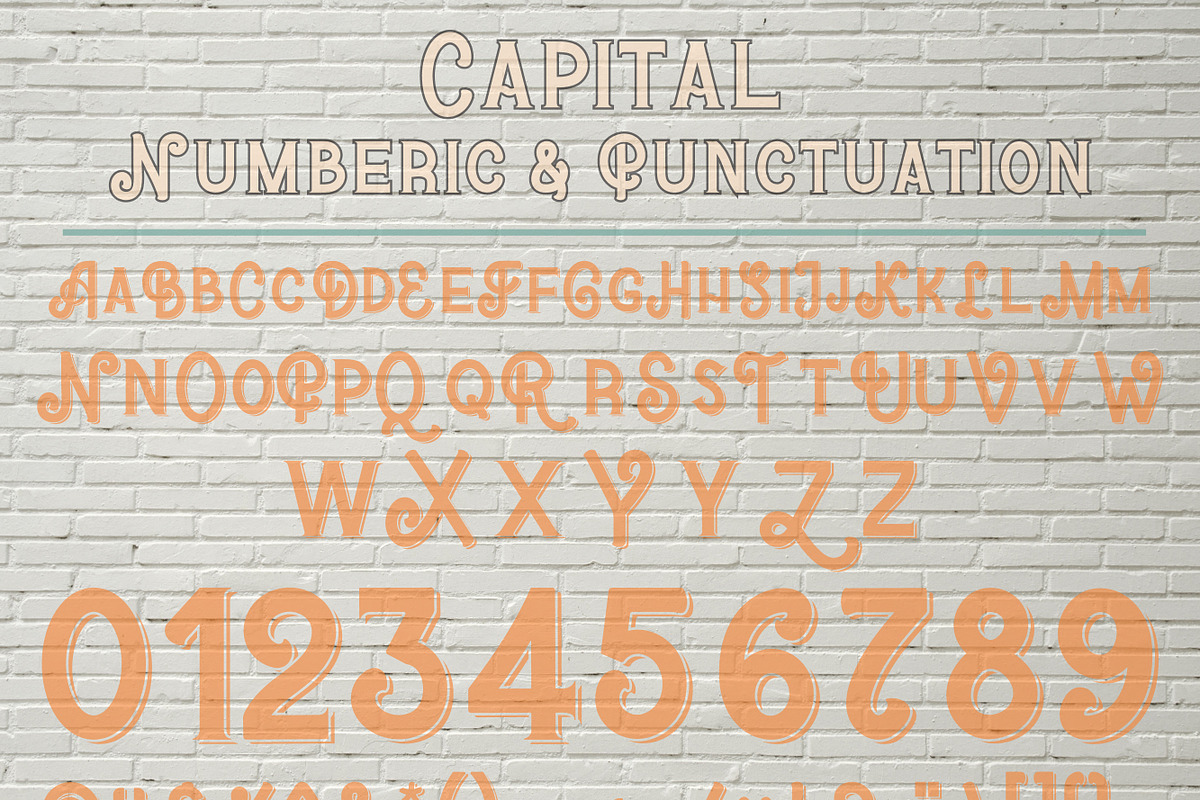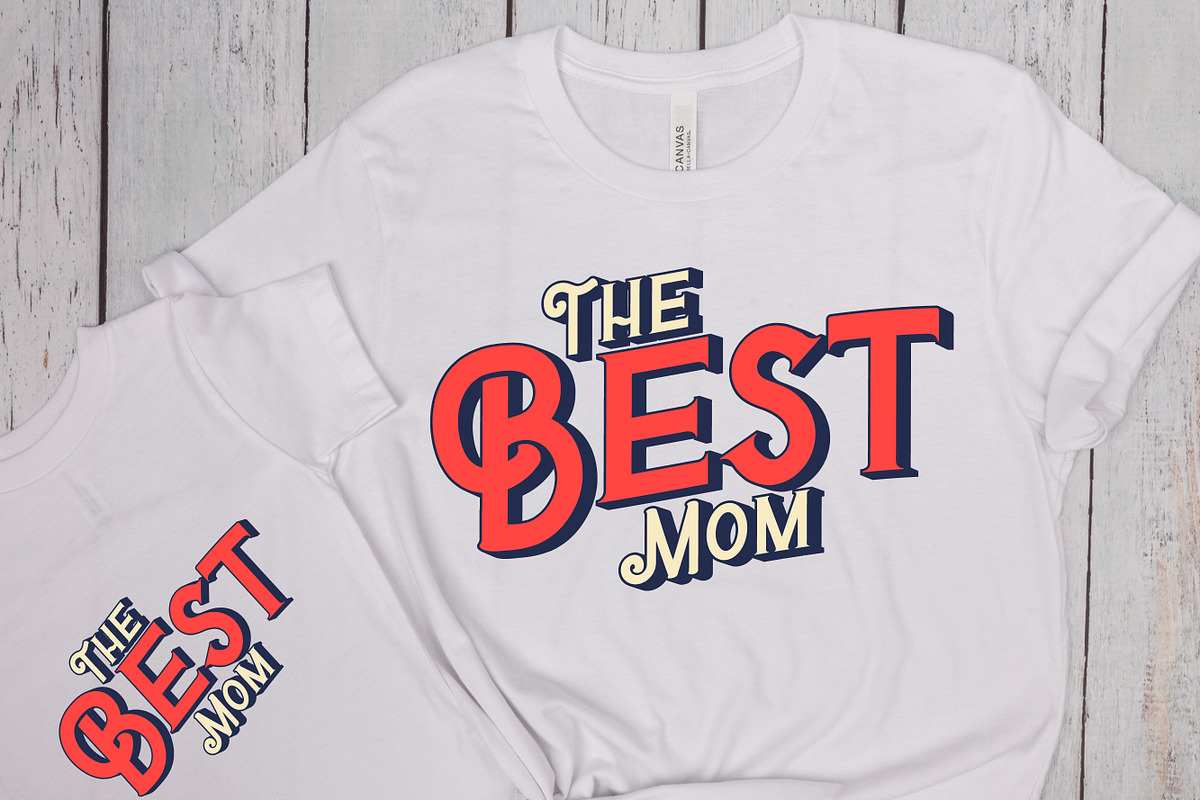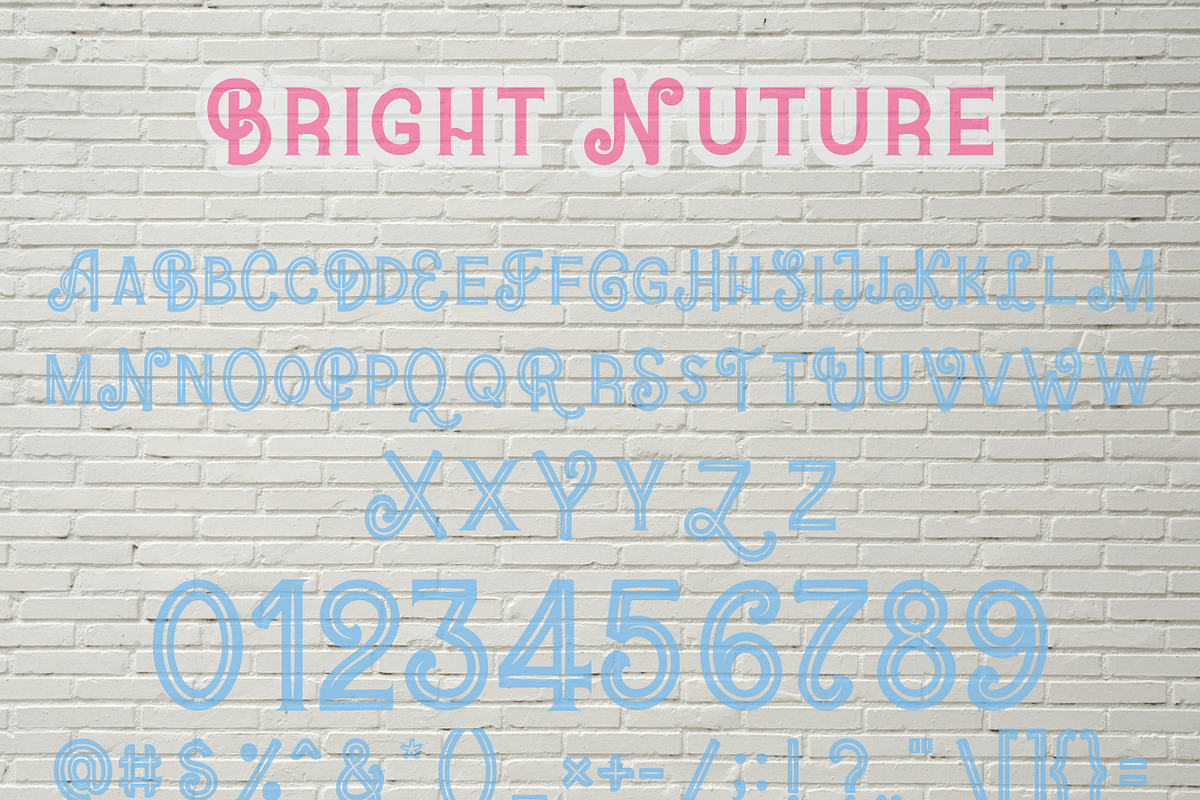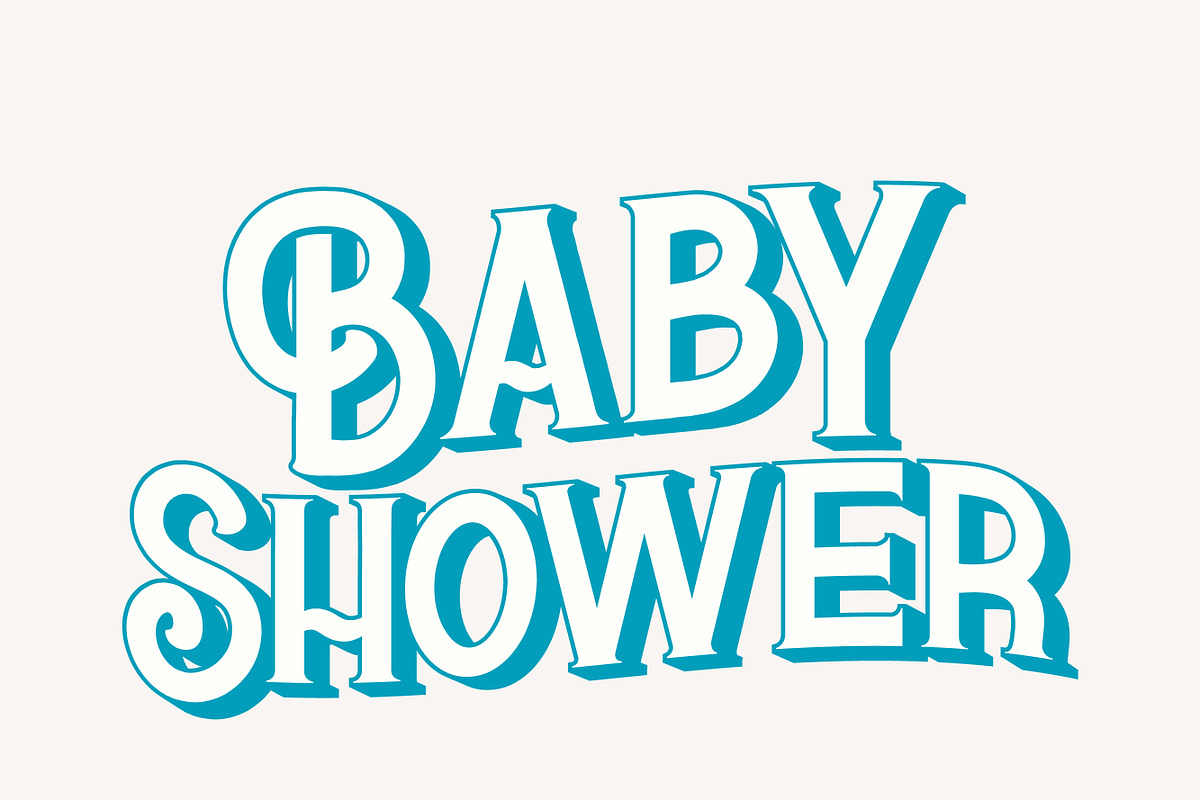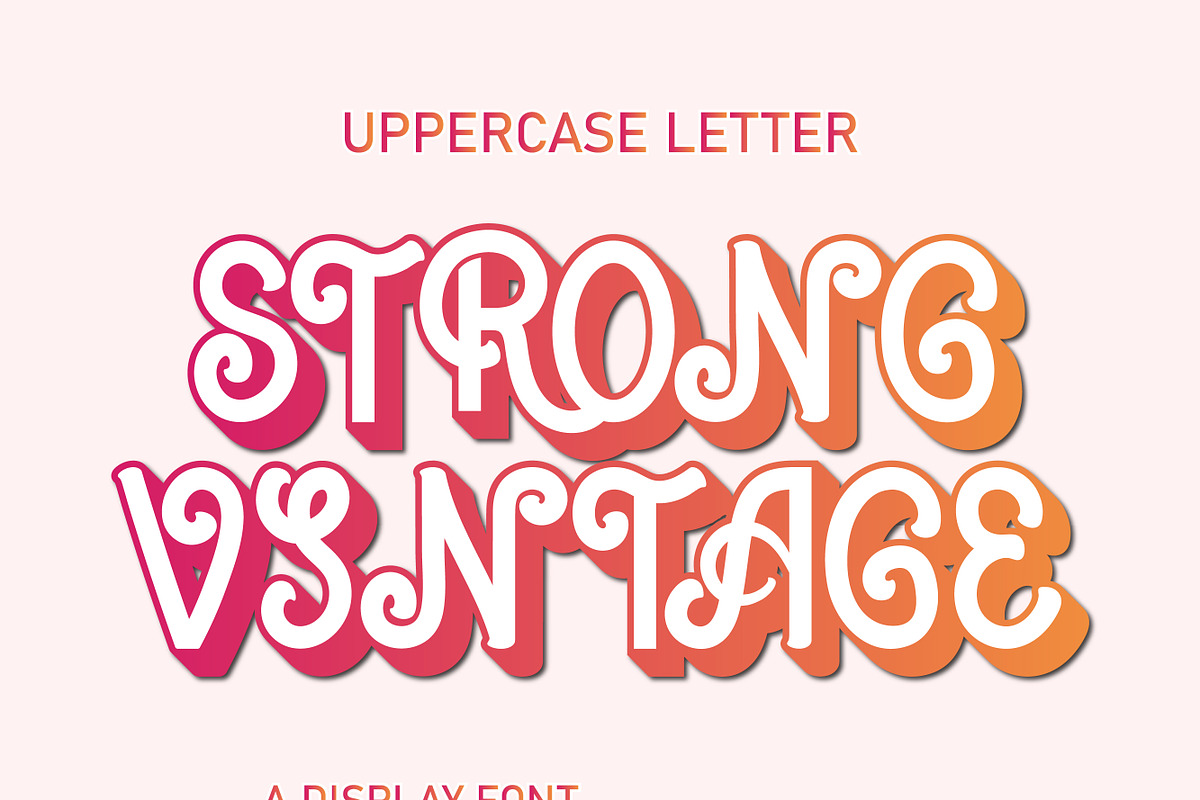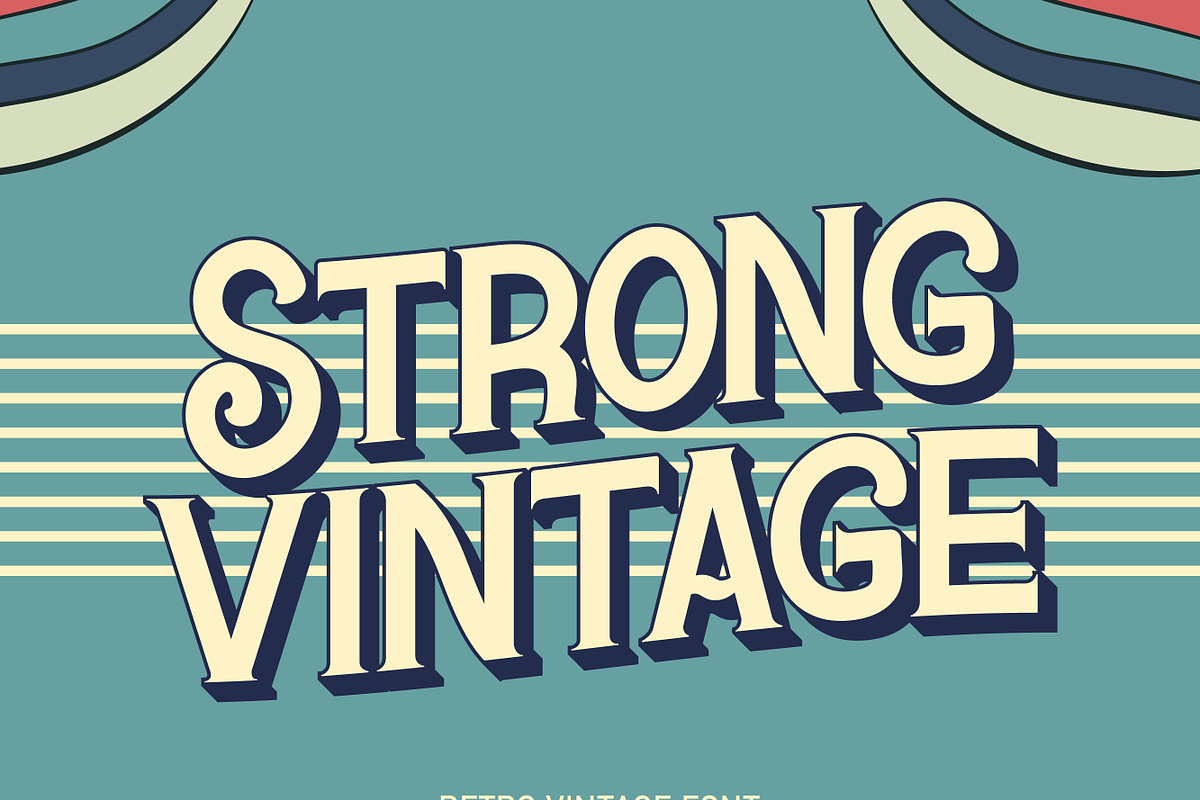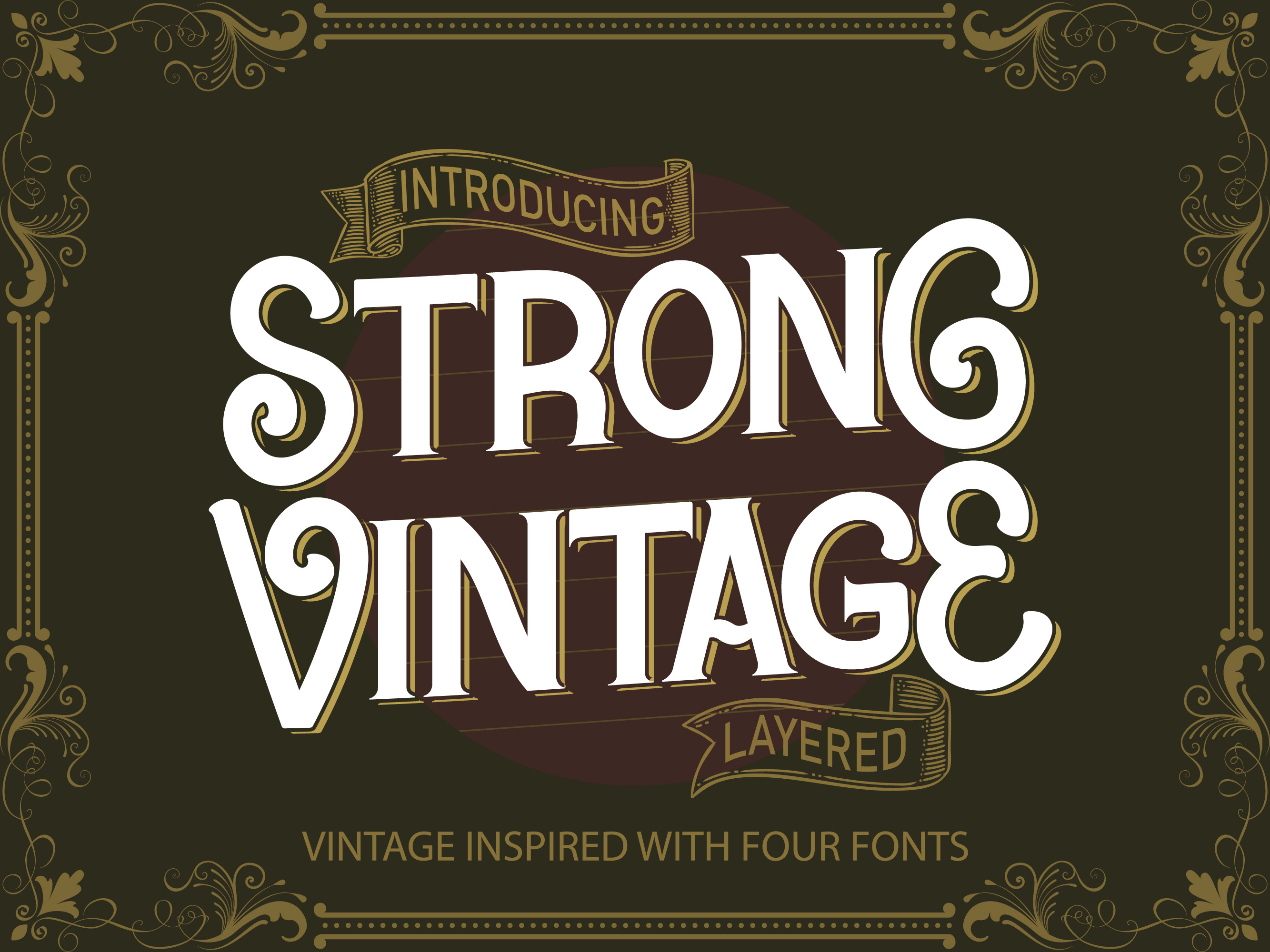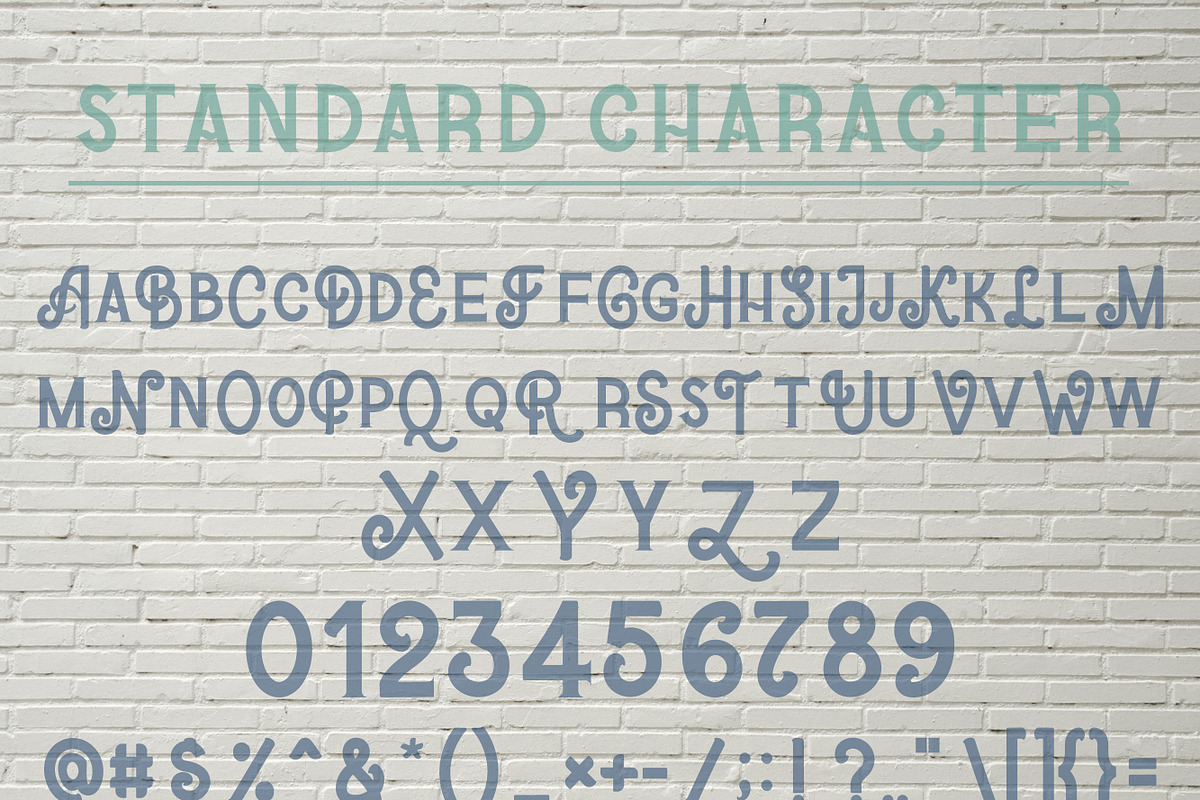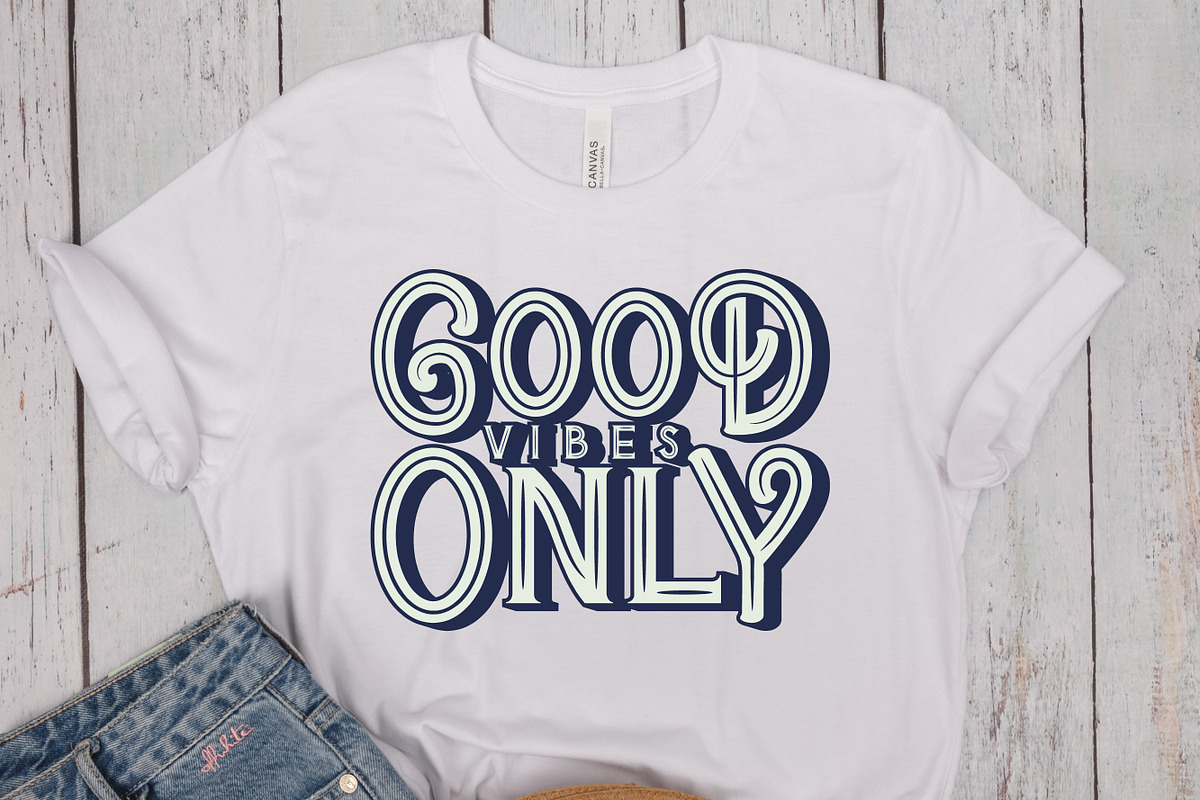
Strong Vintage | Serif Font Family
Bring timeless craftsmanship into your designs with Strong Vintage, a beautifully crafted vintage display font family featuring 4 unique styles. Inspired by classic Victorian signage, antique typography, and traditional letterpress printing, this typeface combines bold character with elegant vintage details.
With four complementary font styles, you can effortlessly create authentic layered typography, eye-catching headlines, premium branding, and nostalgic designs. Use each style individually or combine them to achieve rich depth and classic vintage effects.